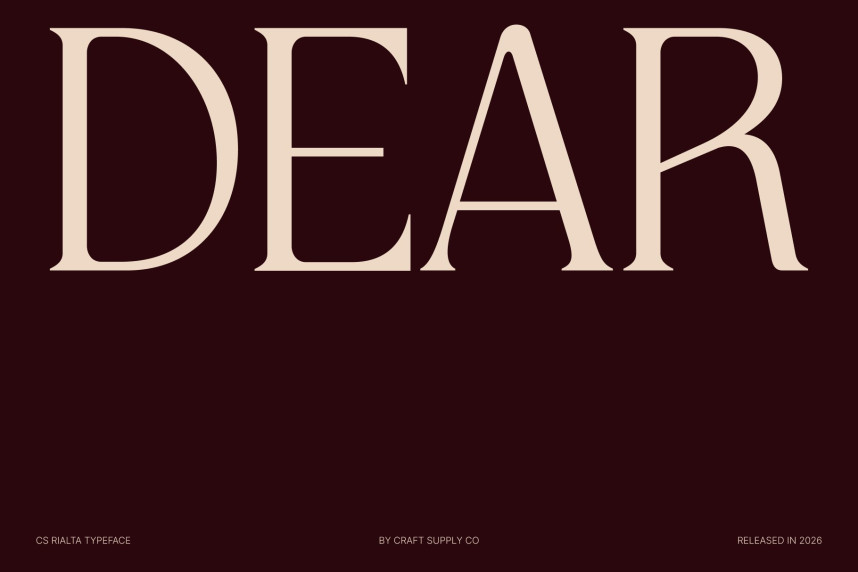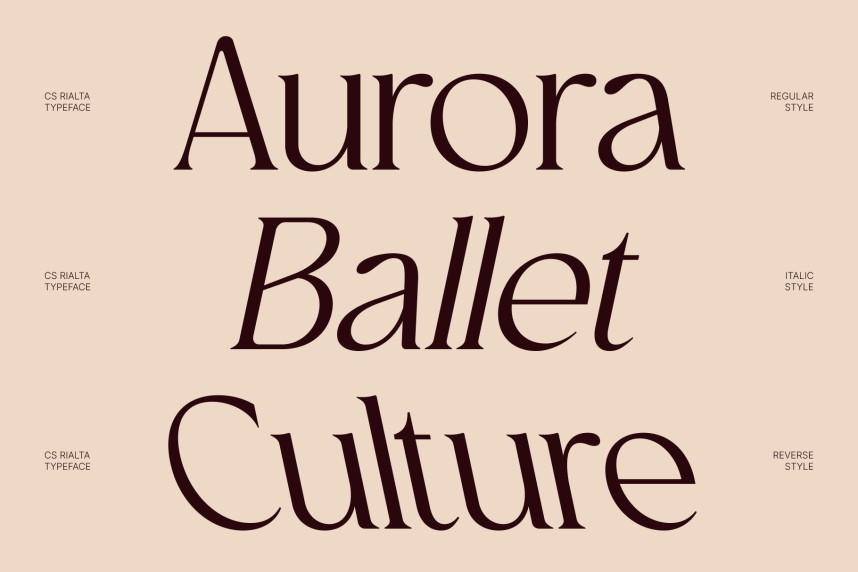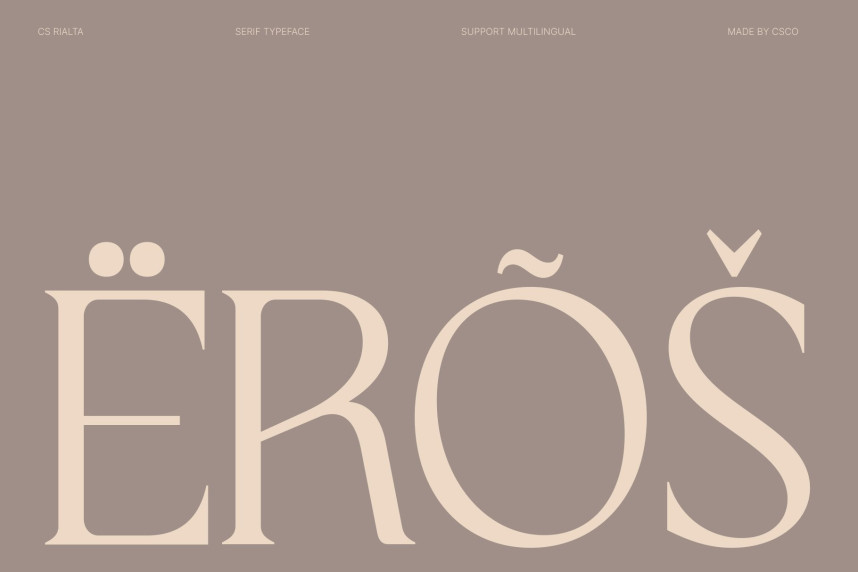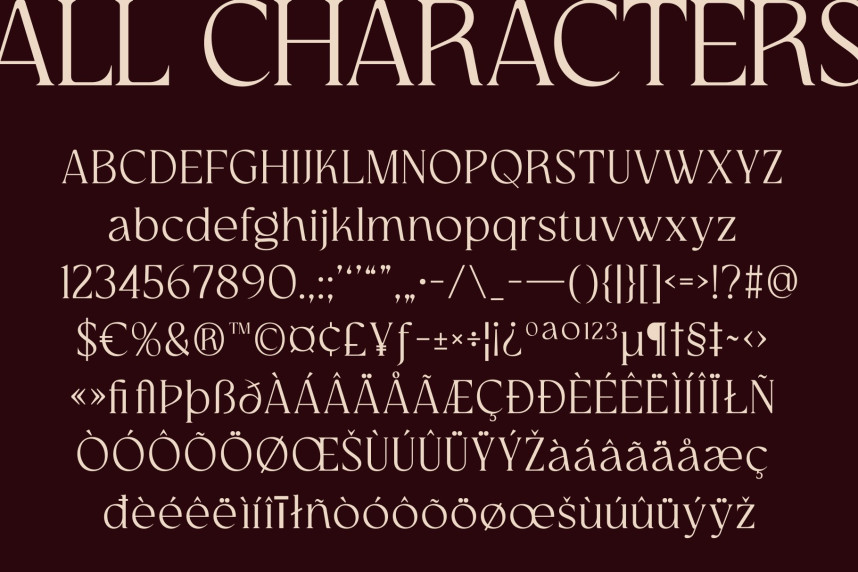
CS Rialta Font
CS Rialta Font – Modern Serif with Timeless Sophistication
Modern Serif with Clean Classic Character
This is a modern serif font that blends timeless elegance with contemporary clarity. Designed to convey professionalism and refined taste, this typeface offers a balanced structure that feels both classic and current. Its graceful proportions and thoughtful detailing make it an excellent choice for designers seeking a sophisticated and polished typographic voice.